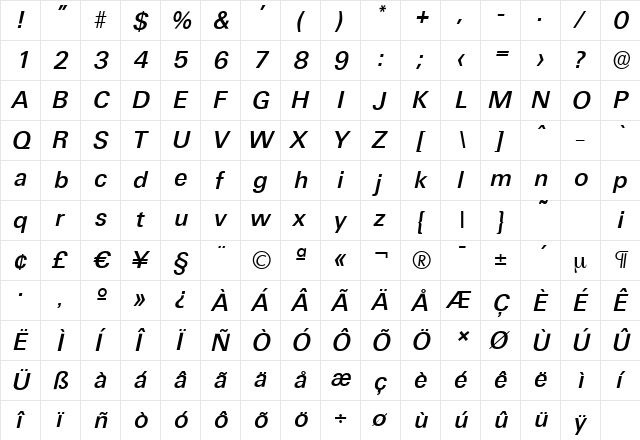
UltimateSerial-Medium Italic Font Preview
UltimateSerial-Medium Italic
UltimateSerial-Medium Italic Font Details
Design Context for UltimateSerial-Medium Typeface
UltimateSerial-Medium takes a measured approach to typography — its balanced proportions and neutral character make it a reliable workhorse for both digital and print work. Its italic angle brings a sense of urgency and motion to the letterforms.
Pro Tip: Try UltimateSerial-Medium for annotation and caption copy alongside an upright companion — the contrast in angle creates a dynamic but ordered typographic system.